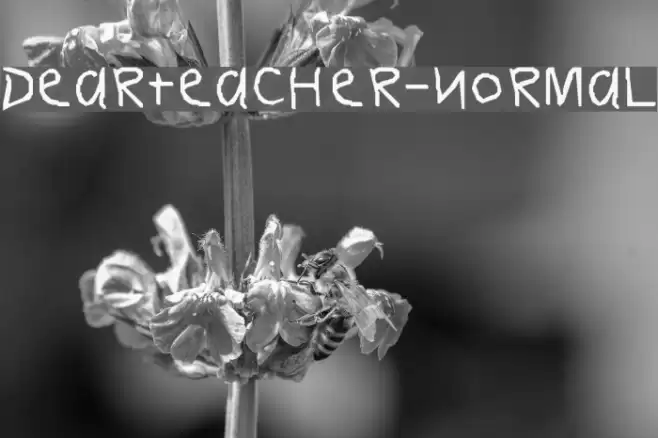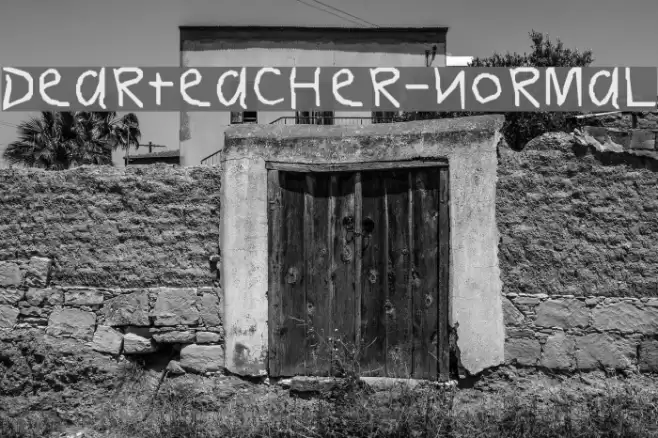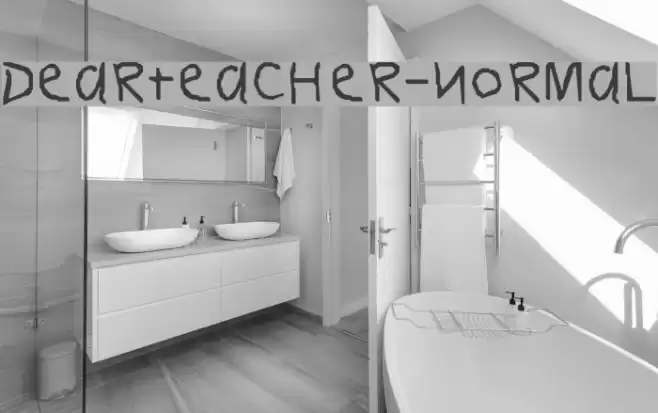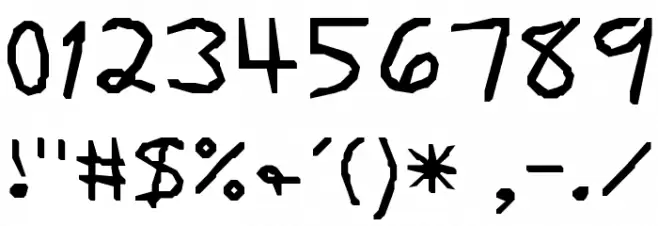
DearTeacher-Normal Font
DearTeacher-Normal Description
This font features a playful, handwritten style that mimics the appearance of casual, informal writing. The characters are unevenly shaped, with a slightly rough and organic texture, giving it a personal and approachable feel. The uppercase and lowercase letters maintain a consistent style, with some letters exhibiting unique quirks, such as the looped 'g' and the angular 'k'. The numerals are bold and distinct, ensuring readability. Special characters are included, maintaining the same playful aesthetic. This font is ideal for projects that require a touch of personality and informality.
A playful, handwritten font with a casual and informal style from Handwritten fonts.
- Proposed Projects: Ideal for greeting cards, children's books, casual invitations, and personal blogs.
- Overall Style: Casual
- Use Case: Headlines, Informal text, Creative projects